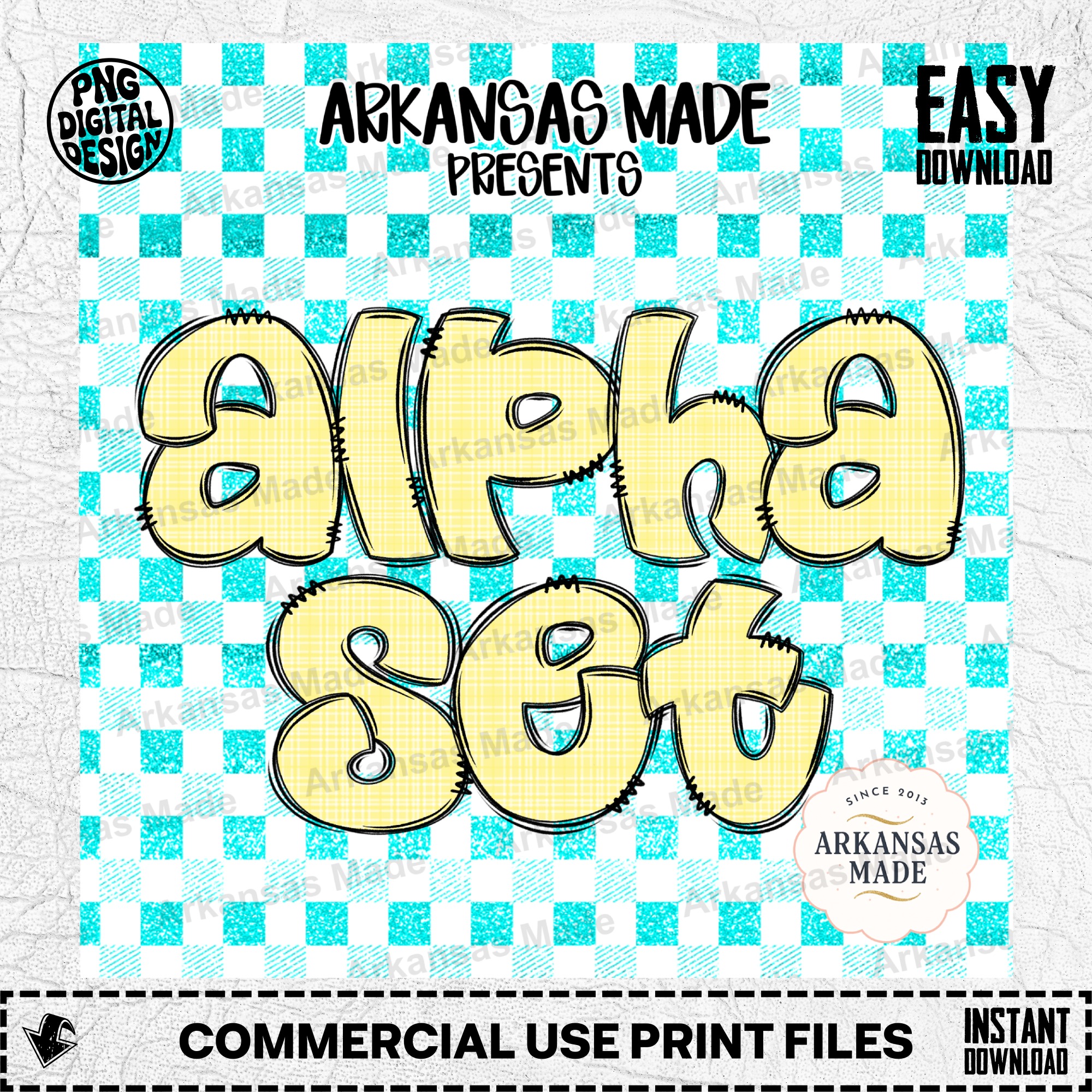
Yellow Gingham Alpha Set PNG, Plaid Bubble Letters Sublimation Font, Digital Alphabet for DIY Crafts, Custom Name Initial Art
Yellow Gingham Alpha Set PNG for sublimation and DIY crafts! Get this digital alphabet bundle with bubble letters for custom designs. Infuse your projects with playful charm using this unique plaid letter collection. Perfect for creating personalized t-shirts, mugs, invitations, or classroom decorations. Ideal for crafters, small business owners, and anyone who loves a touch of cozy, customizable style.